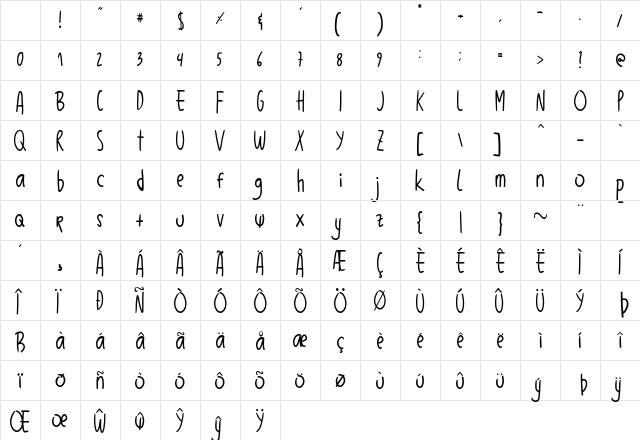
Balibong is a composed and adaptable typeface that performs quietly and consistently across a wide range of design contexts.
Pro Tip: Use Balibong in both headline and body roles to test its range before committing to a single application.